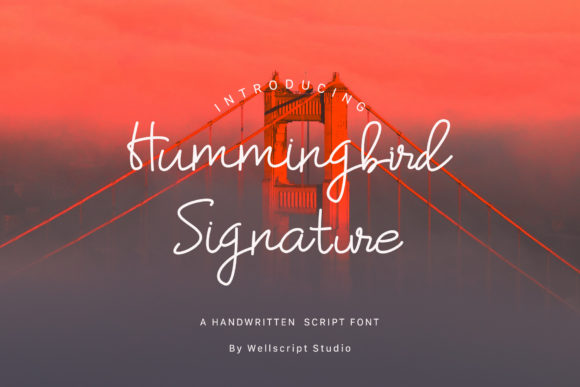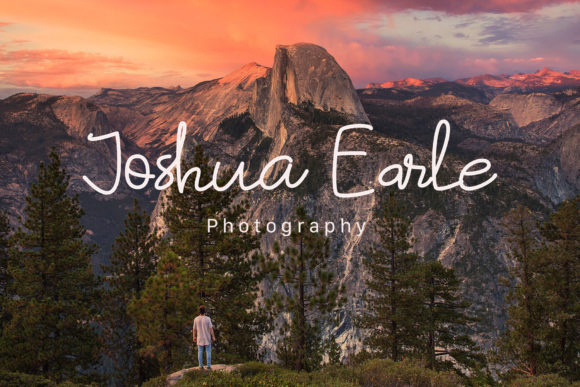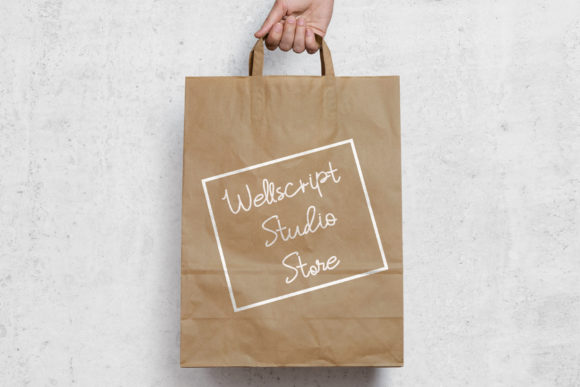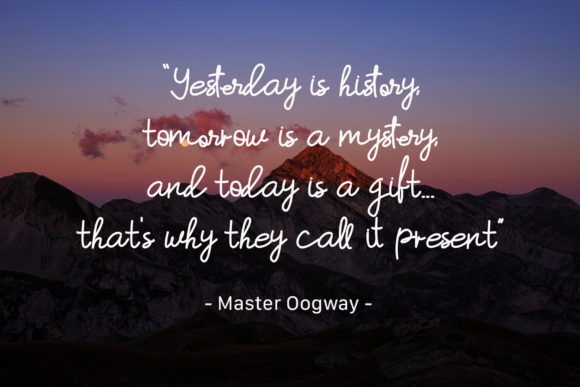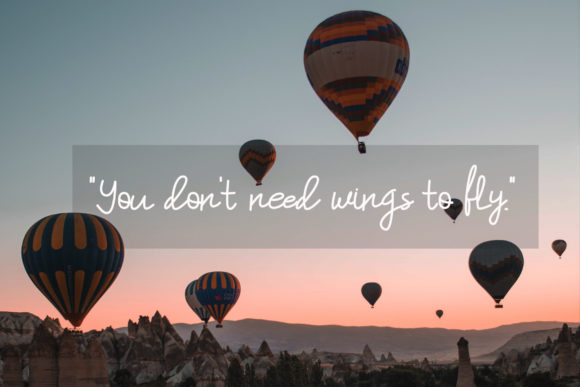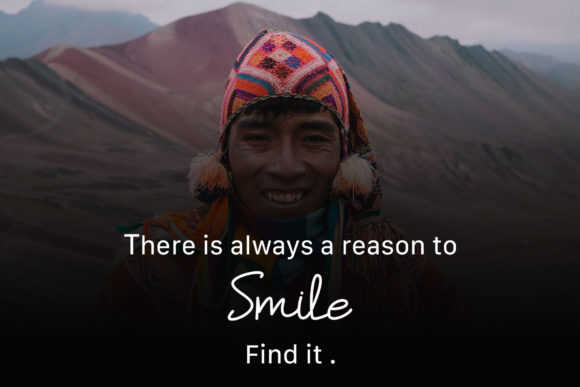
Hummingbird Font
About Hummingbird Font
Hummingbird Signature is a handwritten signature script with a natural & simply style. It’s an extremely versatile font that will work for personal branding, wedding invitations, social media posts, advertisements, product packaging, product designs, labels, photography, watermarks, invitations, stationery and much more!